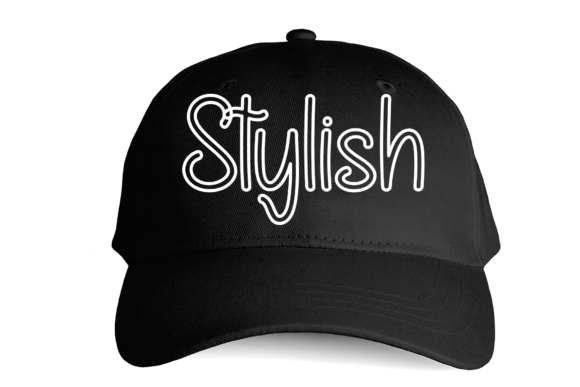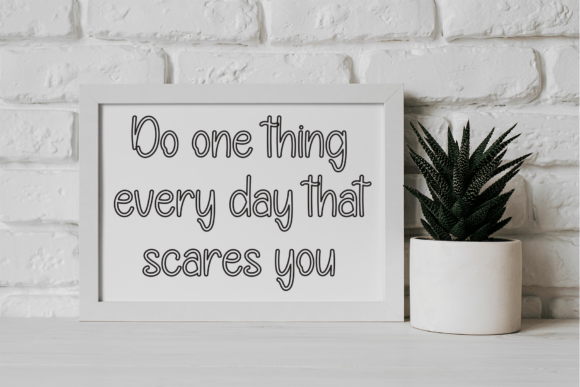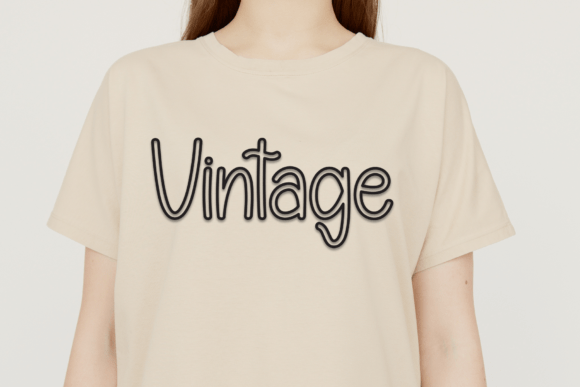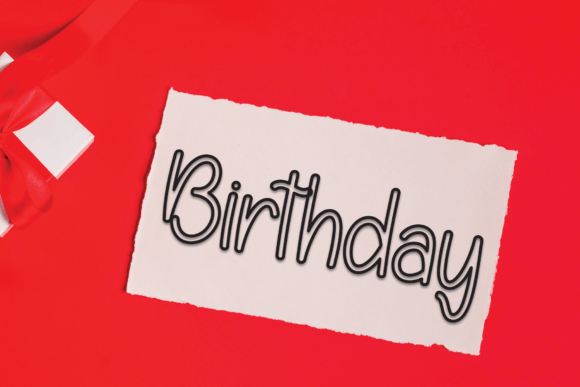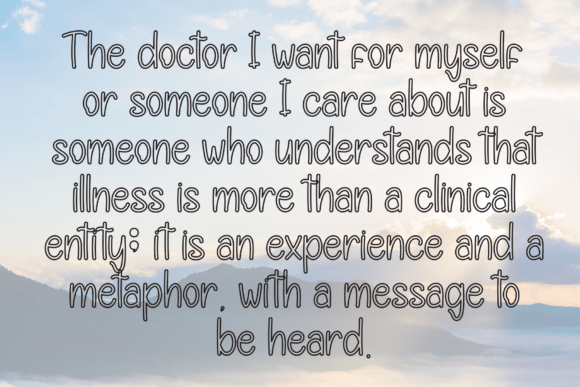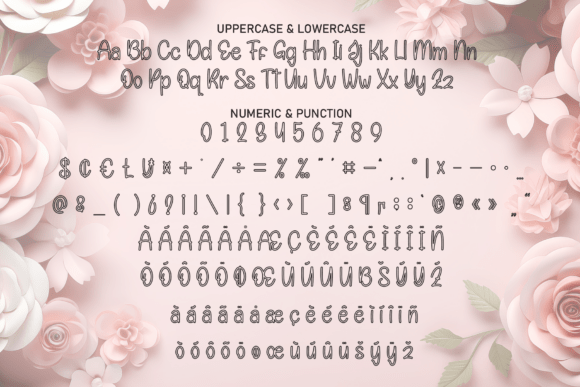
Discover the Charm of Angela Beauty Font: Elevate Your Designs with Warmth and Clarity
In the world of typography, the right font can make all the difference in transforming your design from ordinary to extraordinary. If you’re on the hunt for a typeface that exudes warmth, clarity, and a touch of casual elegance, look no further than the Angela Beauty Font. Designed to bring a sense of approachability and genuineness to your projects, Angela Beauty is a casual and neat display font that has been making waves in the design community.
The Essence of Angela Beauty Font
Angela Beauty is more than just a font; it’s a design companion that can elevate your branding, headlines, and everyday designs with its clean structure and inviting style. The balanced letterforms of this font are crafted to offer readability and charm, making every message feel personal and engaging. Whether you’re working on a project that requires a professional touch or something more laid-back and creative, Angela Beauty is versatile enough to fit any design bill.
Key Features of Angela Beauty Font
- Clean Structure: The font boasts a clean and organized structure that ensures clarity in any design application.
- Approachable Style: Its casual yet neat appearance makes it perfect for designs that need to feel welcoming and accessible.
- Balanced Letterforms: The design of each letter is carefully balanced to provide optimal readability without sacrificing style.
- Versatility: Suitable for a wide range of projects, from professional branding to personal crafts and everything in between.
Applications of Angela Beauty Font
The versatility of Angela Beauty Font makes it an excellent choice for various design projects. Here are some of the areas where this font truly shines:
- Branding: Use Angela Beauty to give your brand a friendly and approachable image that resonates with your audience.
- Headlines: Its display qualities make it perfect for headlines and titles that need to capture attention and convey warmth.
- Everyday Designs: From flyers and brochures to social media graphics and website headers, Angela Beauty can add a touch of elegance and simplicity to your designs.
Why Choose Angela Beauty Font?
In a sea of fonts, Angela Beauty stands out for its unique blend of casualness and sophistication. Here are a few reasons why designers and crafters are gravitating towards this beautiful typeface:
- Readability: The font’s design prioritizes readability, ensuring that your message is conveyed clearly and effectively.
- Aesthetic Appeal: With its clean lines and balanced letterforms, Angela Beauty adds an aesthetic appeal to any design.
- Emotional Connection: The warmth and approachability of the font help create an emotional connection with the audience, making your designs more impactful.
Angela Beauty Font is a fantastic addition to any designer’s toolkit. Its unique blend of warmth, clarity, and approachability makes it an ideal choice for a wide range of projects. Whether you’re looking to elevate your branding, create engaging headlines, or simply add a touch of elegance to your everyday designs, Angela Beauty is sure to deliver. With its clean structure, balanced letterforms, and versatile application, this font is poised to become a favorite among designers and crafters alike. So, why wait? Explore the charm of Angela Beauty Font today and take your designs to the next level!